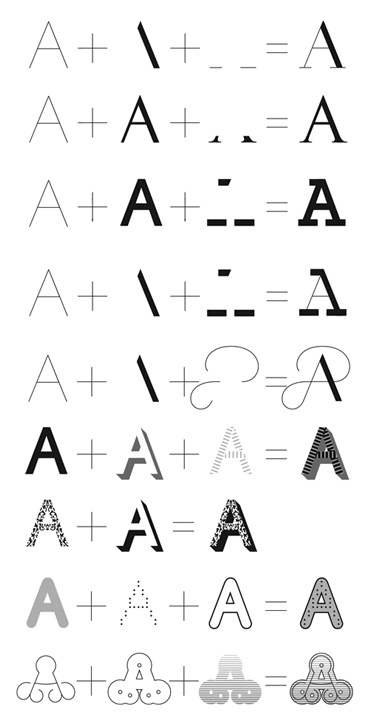
History (Typotheque)
Design concept
Based on a skeleton of Roman inscriptional capitals, History includes 21 layers inspired by the evolution of typography. These 21 independent typefaces share widths and other metric information so that they can be recombined. Thus History has the potential to generate thousands of different unique styles.
Years later the project took a new twist when Bi?ak worked on proposals for the Twin Cities typeface. Instead of proposing one new typeface, he presented the idea of a typeface system that could take any form, inspired by the evolution of typography. While the Twin Cities proposal was a conceptual typeface that reused existing typefaces, History goes one step further. Based on a skeleton of Roman inscriptional capitals, History includes 21 layers, 21 independent typefaces which share widths and other metric information so that they can be recombined. Thus History has the potential to generate thousands of different unique styles through the superimposition of layers ranging from humanist renaissance, transitional, baroque, script-like, early grotesque and 19th century vernacular to digital types. Since all these fonts share the same widths and skeleton, the most interesting things happen when various seemingly incompatible elements are combined. Just try combining pixel letters with Didot-like serifs, or put 19th century slab serifs on top of a renaissance construction. While careless use can generate freakish results resembling Frankenstein’s monster, more careful experimentation can produce not only amusing, but surprisingly fresh and usable typeface samples.
Realising that controlling 21 different layers can be a daunting task, Typotheque not only delivers History as a set of OpenType fonts, but also provides an application called History Remixer. This web-based application processes single text input through an interface which allows the user to work with the layers, activating, deactivating, arranging, setting colour, and setting luminosity. The application generates an open PDF file suitable for direct use.